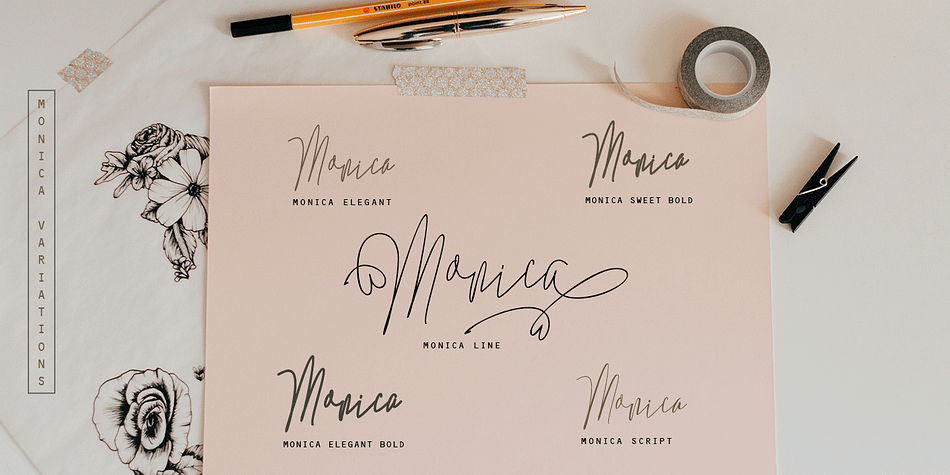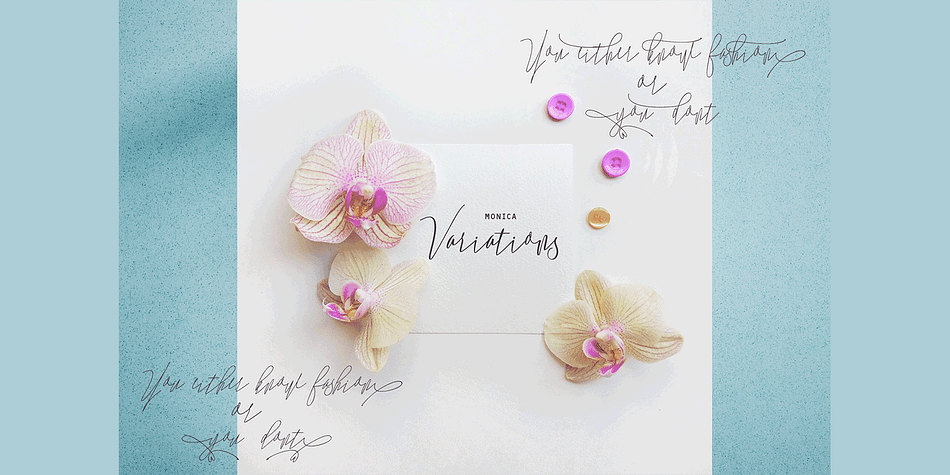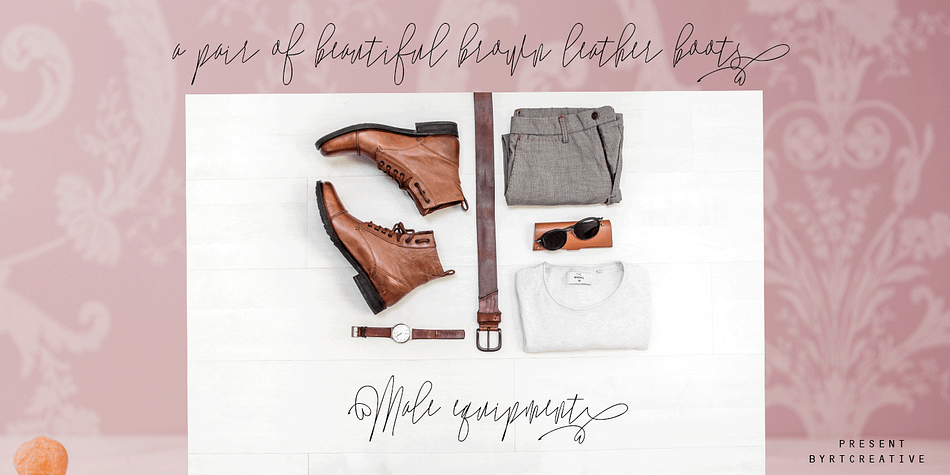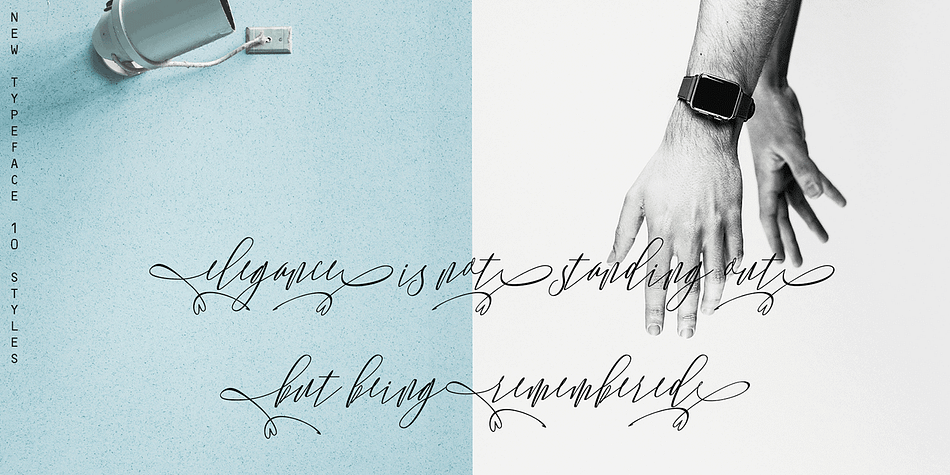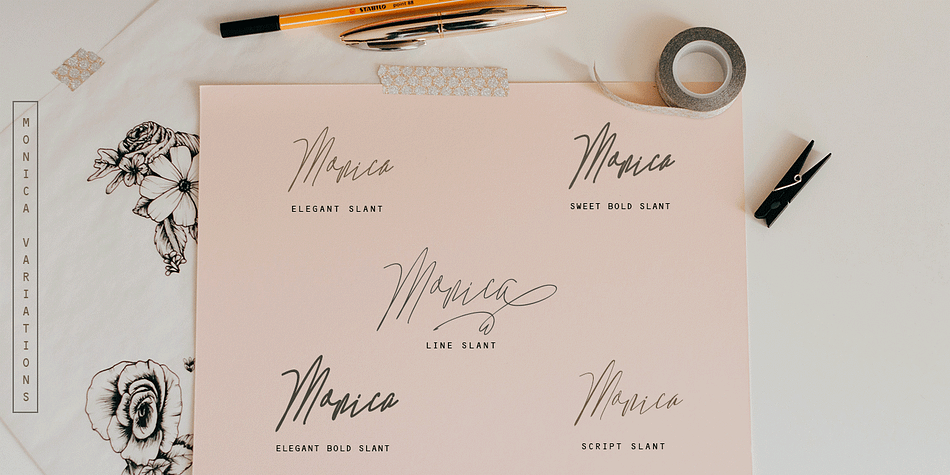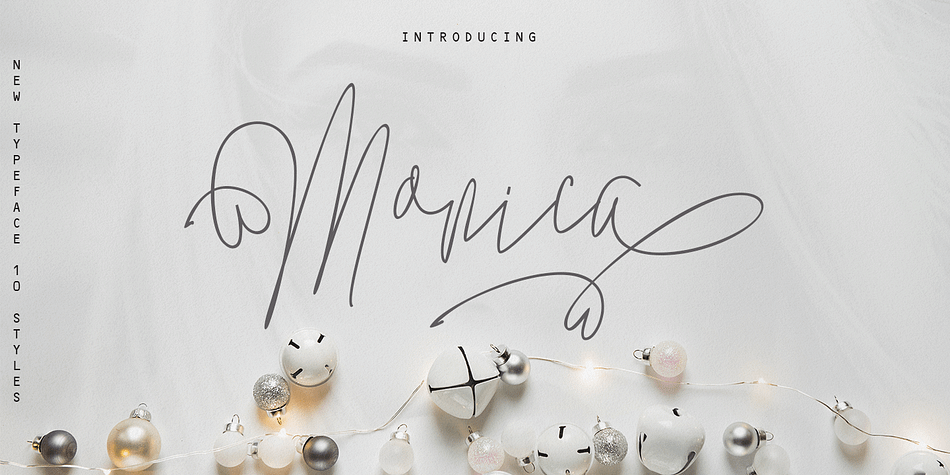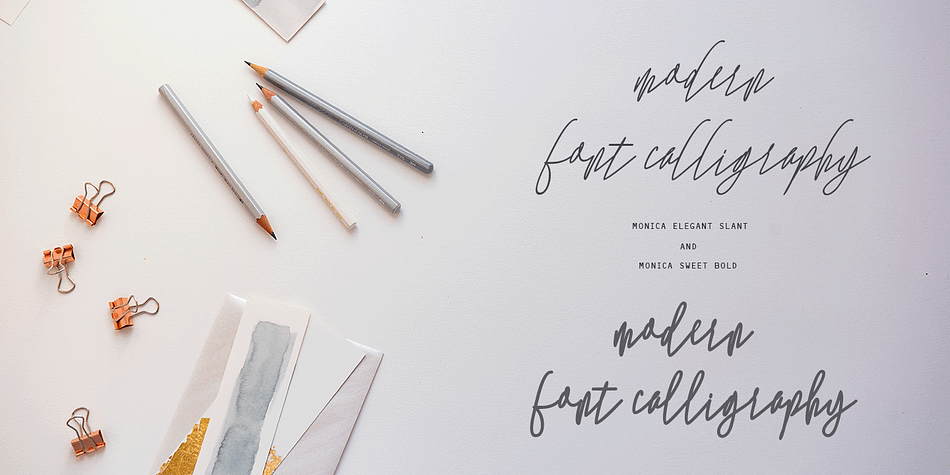
Designed by Rahmat Hidayat, Monica is a modern calligraphy and script font family. This typeface has ten styles and was published by RtCreative.
Monica, a work that is purely handwritten, has natural characteristics. It’s perfect for invitations, signatures, blogs, social media, business cards, product brands.
Monica is a simple font, comes with 10 Elegant Variations, has a standard stylistic set as well as stylistic alternates. The fonts include uppercase and lowercase letters, numbers and punctuation.